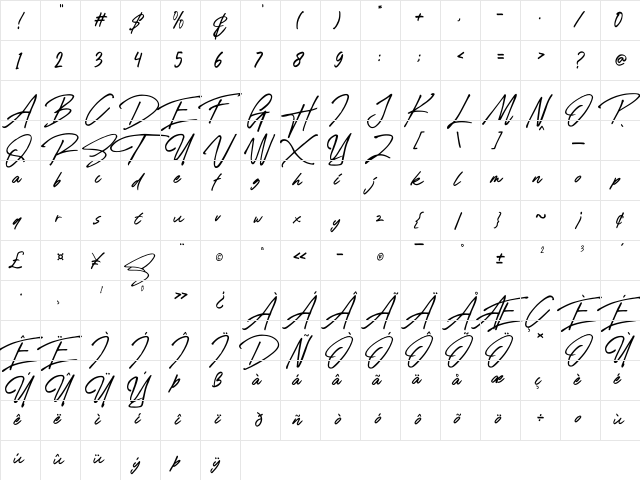
Rose Flinch Script
| Style | Script |
| Foundry | Astageni Type |
| Designer | Nur Solikh |
Design Context for Rose Flinch Typeface
Rose Flinch flows with the natural rhythm of handwritten lettering, making it ideal for designs that call for warmth and personal expression.
Font Pairing: Combine Rose Flinch with a simple geometric sans for maximum contrast — the tension between flowing curves and clean structure is a classic typographic pairing.